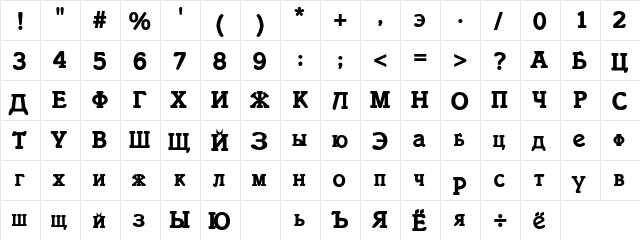
PravdaDisplaySSK Bold
Design Context for PravdaDisplaySSK Typeface
PravdaDisplaySSK is built around its visual character rather than neutral utility — its distinctive forms are designed to make an impression at display sizes. The heavy weight commands attention and anchors typographic hierarchies.
Font Pairing: Pair with a clean neutral sans-serif for body copy to let PravdaDisplaySSK's character lead without overwhelming the composition.
Pro Tip: Use PravdaDisplaySSK exclusively at display sizes — it was designed to be seen, not read at length. Let a neutral companion handle body copy.